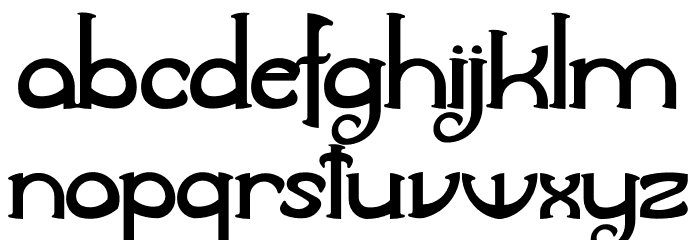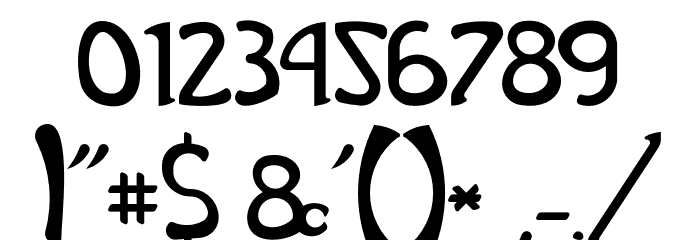
Awelita Font
This font features a unique blend of modern and vintage styles, characterized by its bold and flowing curves. The uppercase letters have a distinct art deco influence, with rounded edges and a slightly condensed form. The lowercase letters maintain a playful yet sophisticated look, with some characters featuring decorative elements that add to its charm. The numbers are bold and consistent, matching the overall aesthetic of the font. Special characters are creatively designed, maintaining the font's cohesive style. This font is ideal for projects that require a touch of elegance and creativity.
A bold, art deco-inspired font with flowing curves and decorative elements.
- Font: Awelita
- Proposed Projects: Ideal for branding, posters, invitations, and any design project needing a vintage yet modern touch.
- Overall Style: Vintage, Modern